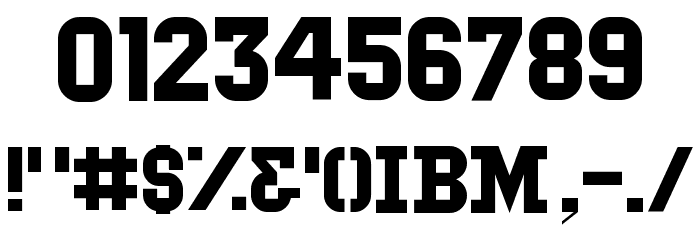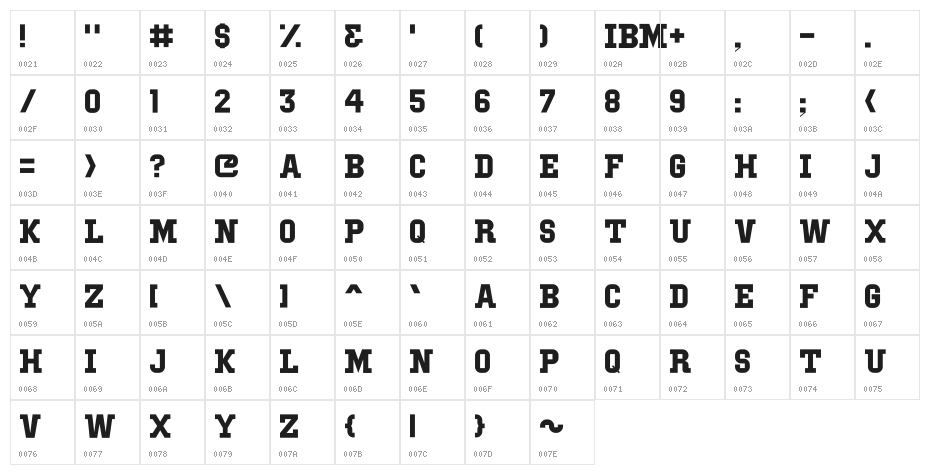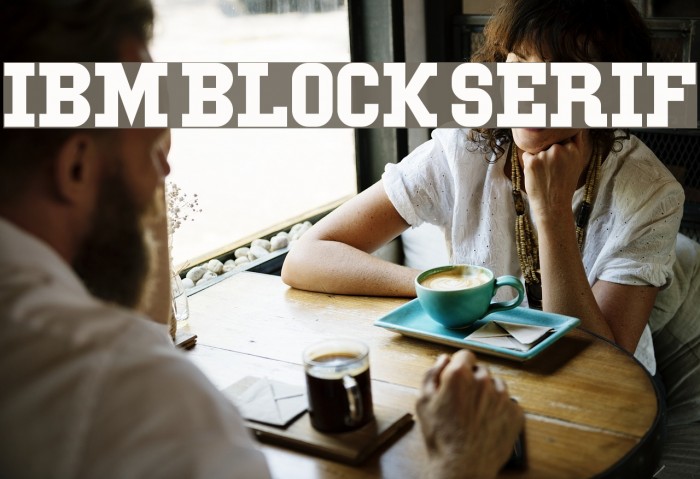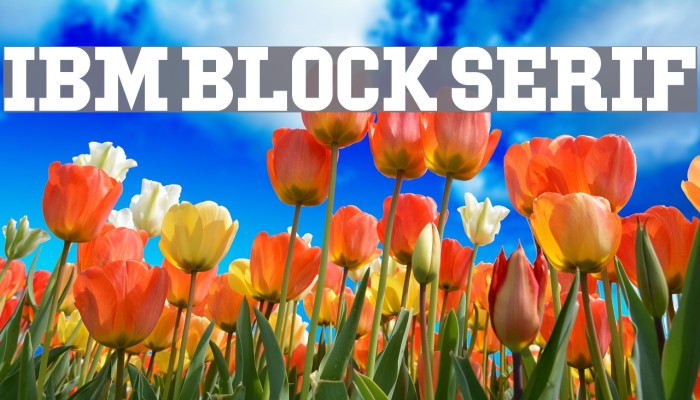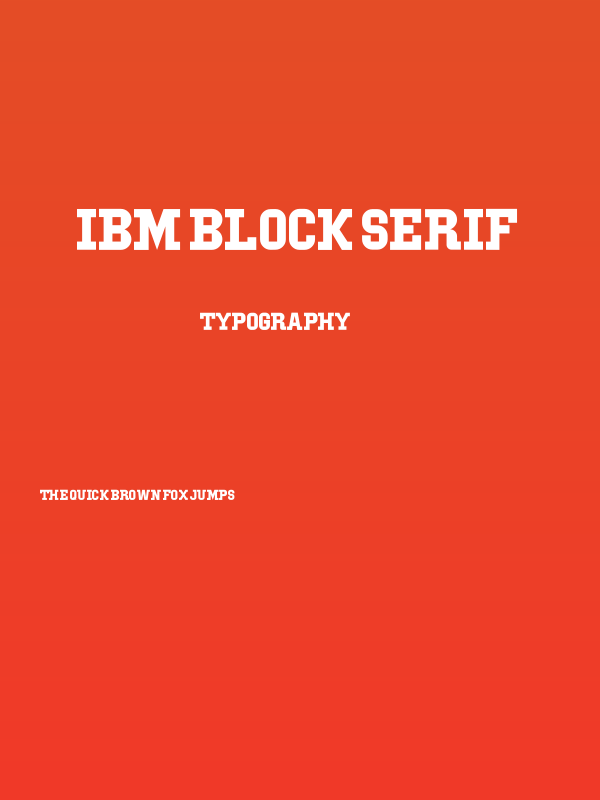
IBM Block Serif Font
IBM Block Serif Description
This font features a bold and robust design with strong, block-like serifs that give it a commanding presence. The characters are uniformly wide, with a consistent stroke weight that emphasizes stability and strength. The uppercase letters are particularly striking, with a geometric precision that makes them stand out. The numerals are equally bold, maintaining the same weight and width as the letters, ensuring a cohesive look across all characters. Special characters are designed with the same attention to detail, making them easily readable and visually appealing. This font's overall aesthetic is both modern and timeless, making it versatile for various design applications.
| Proposed Projects | Ideal for branding, headlines, posters, and any design requiring a strong, impactful typeface. |